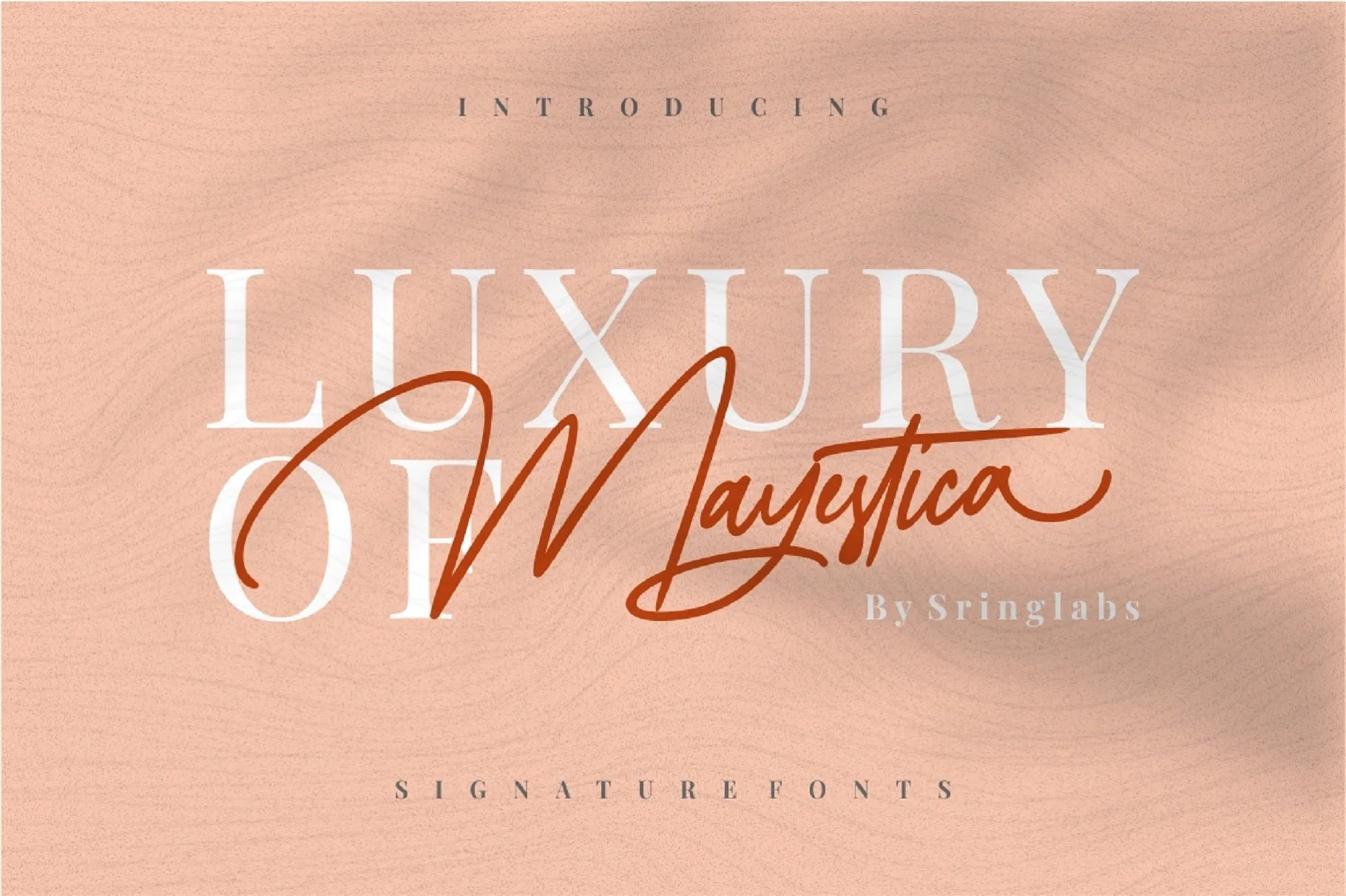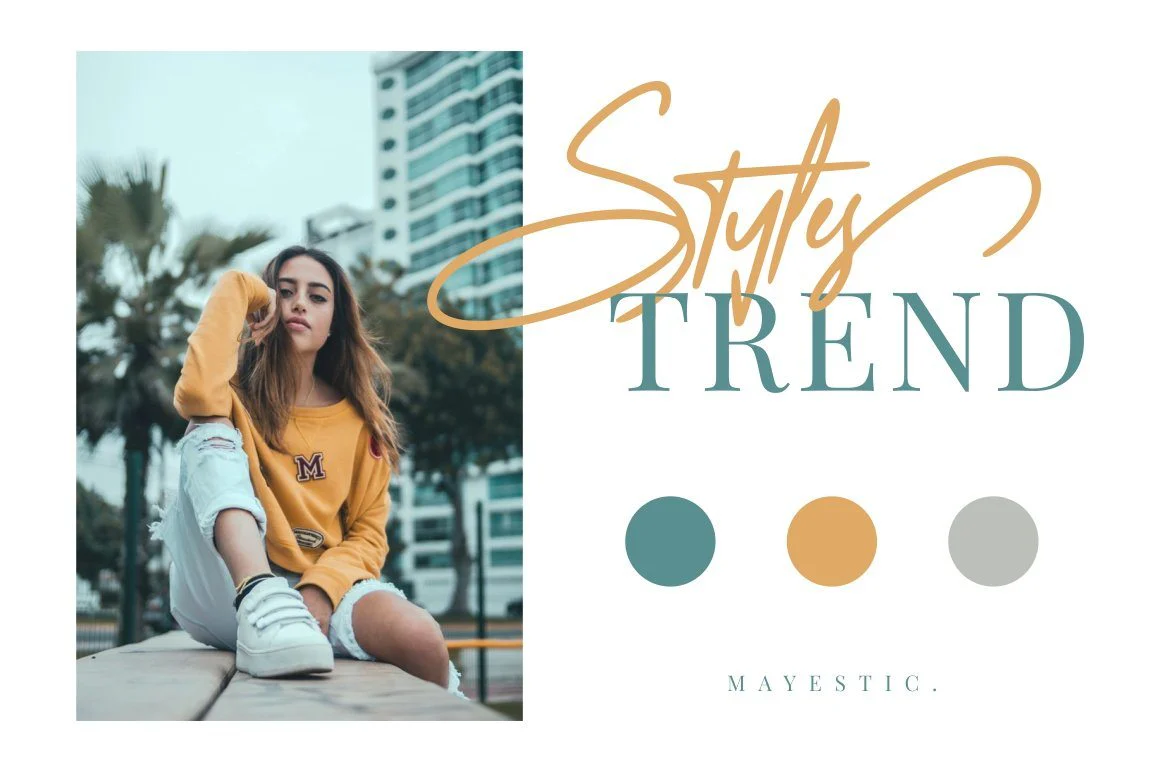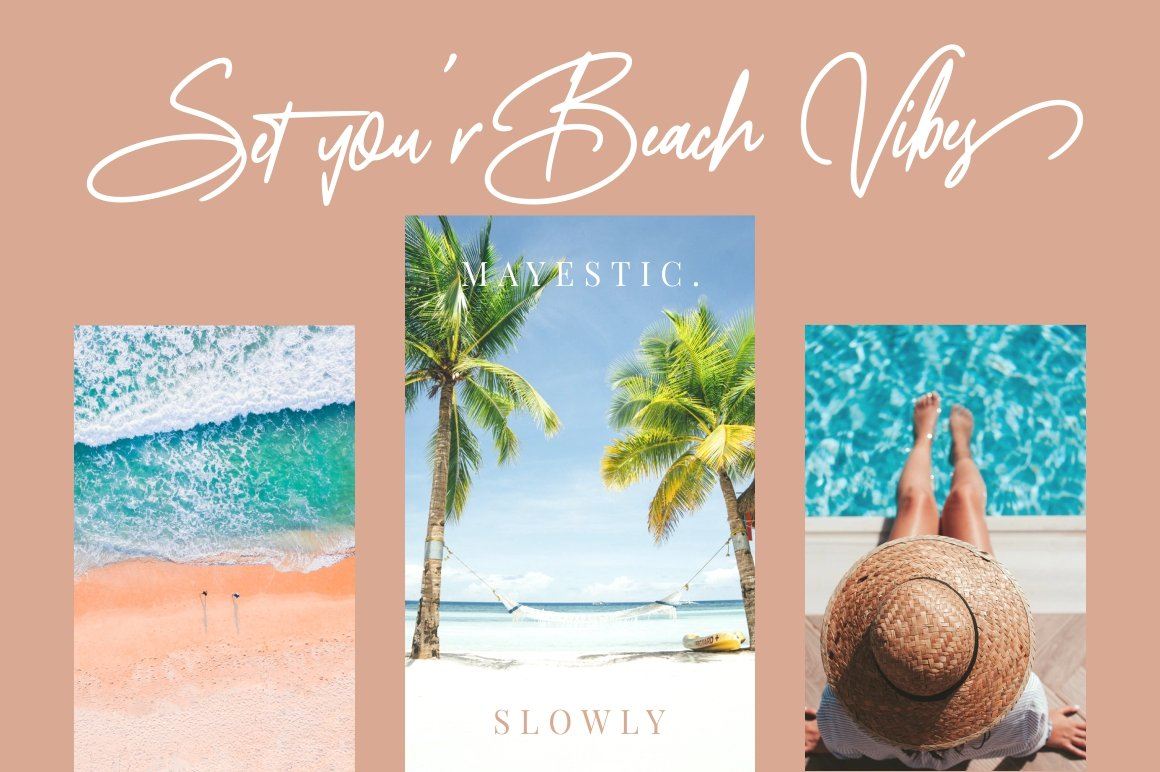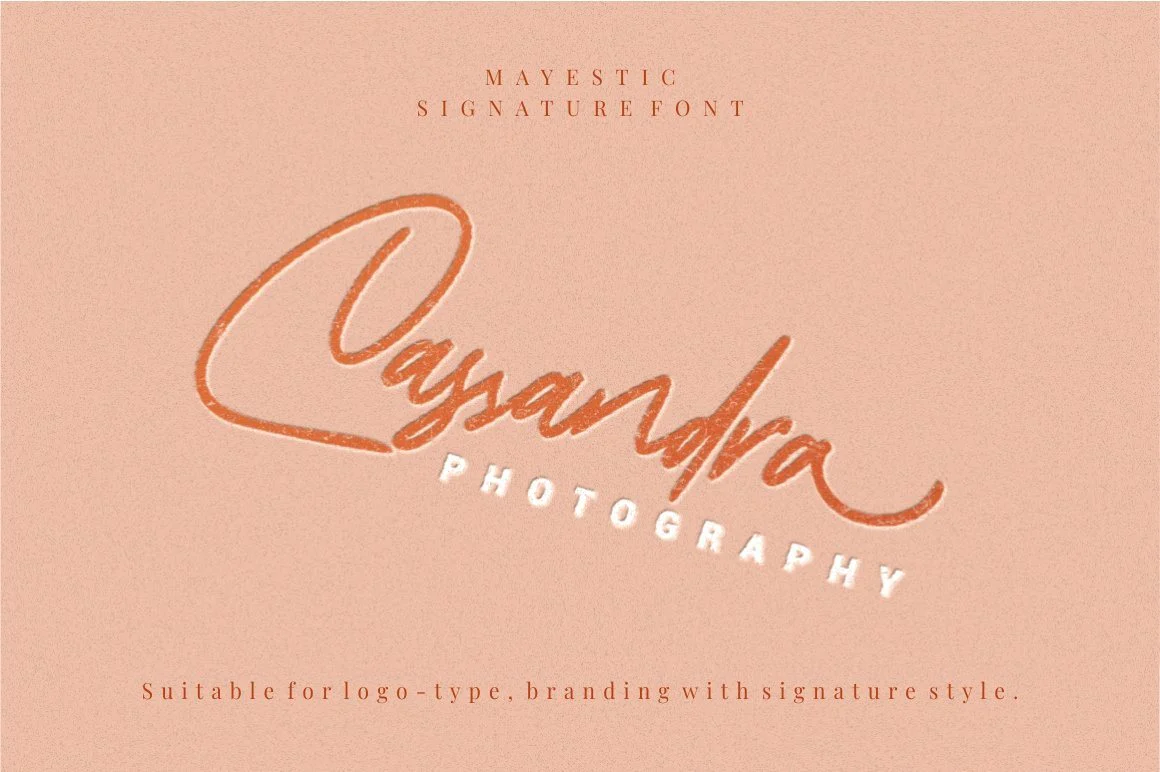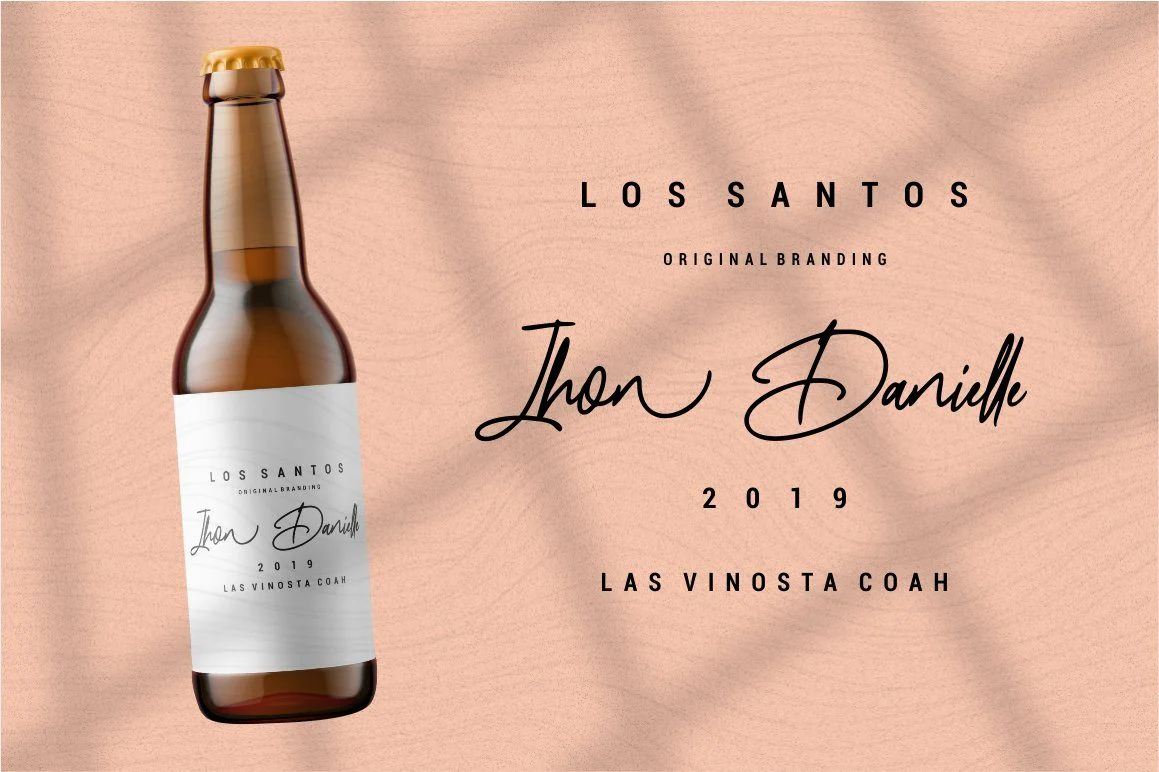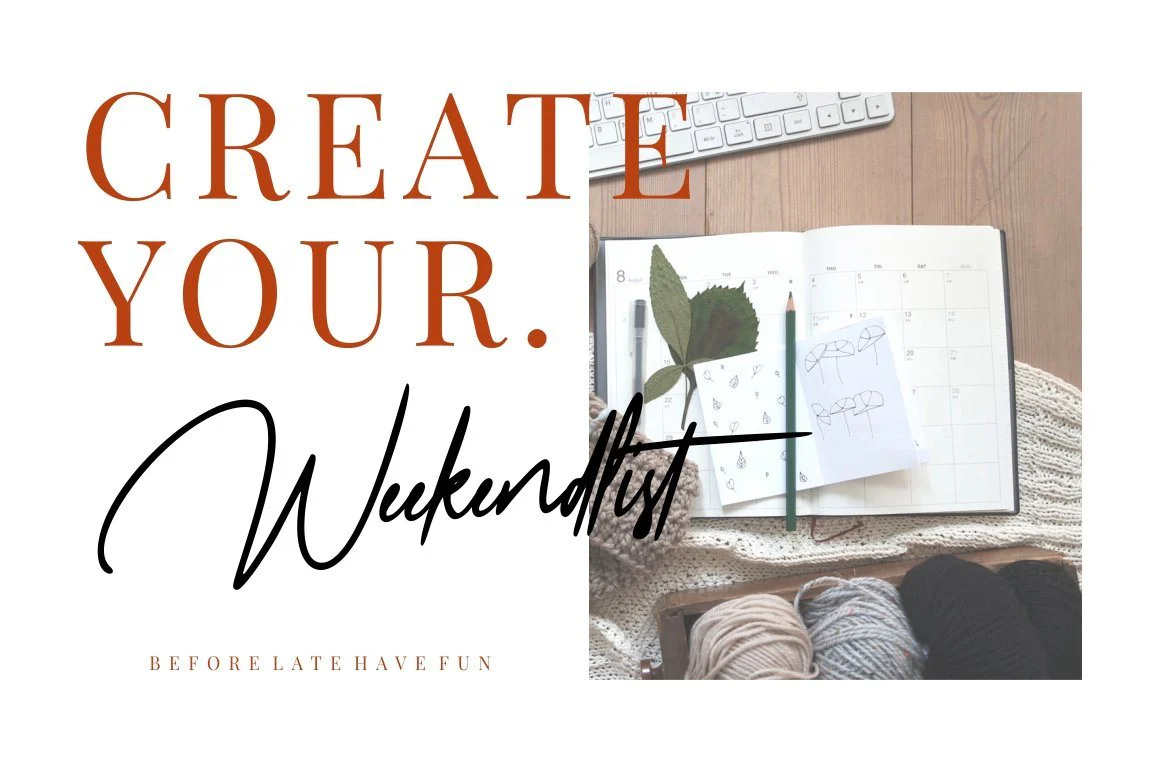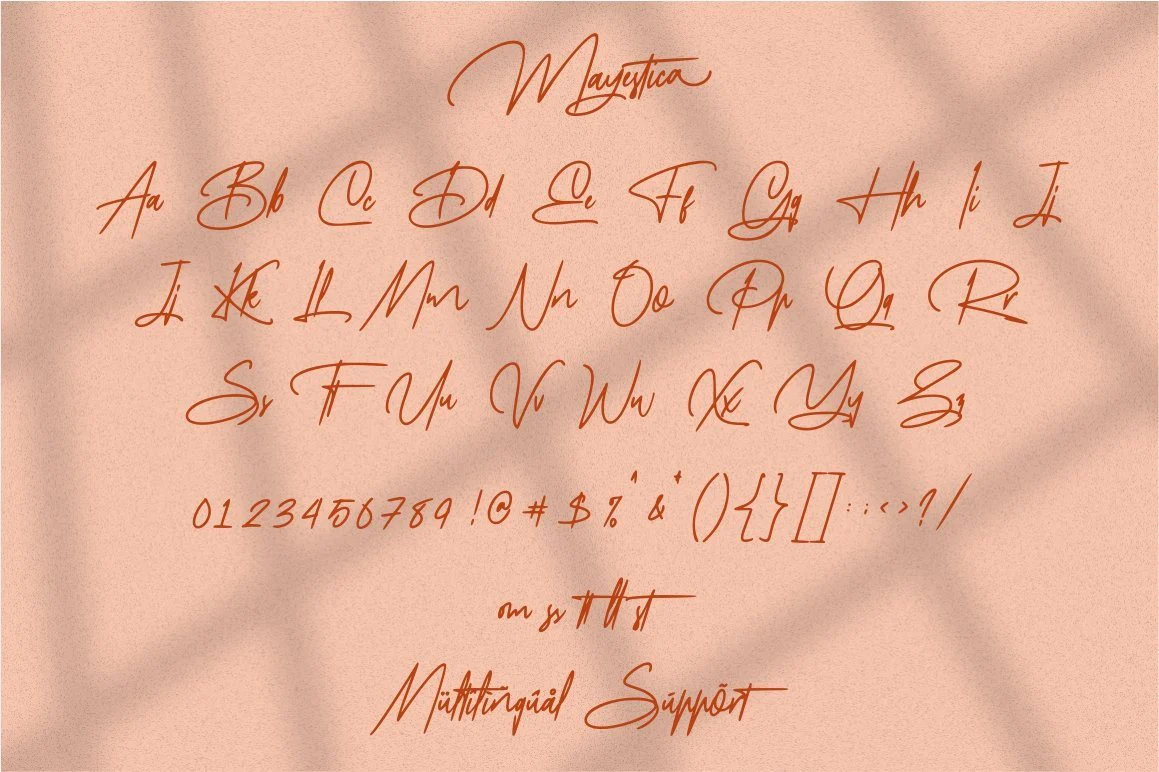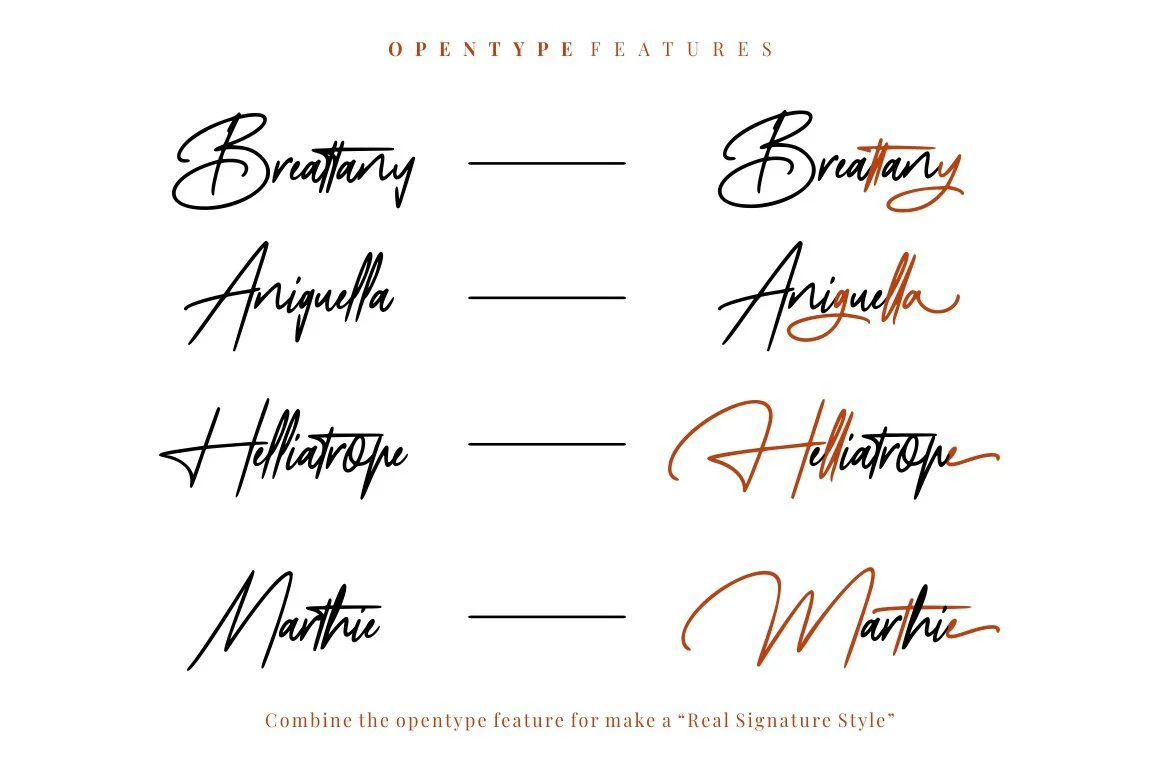
Mayestica - Luxury Signature Font
Introducing Mayestica - Luxury Signature Font
This Font can be used for any variety of purposes, such as:
Photography, Wedding, Ceremony, Packaging Products, Logo Type, Branding, T-Shirt Design, Website/Blog, Headline Magazine, Brochures and also can be used for personal purpose.
This Font Template contains Modern, Elegant, creative, Professional and Unique Concept.
- Uppercase & Lowercase letters